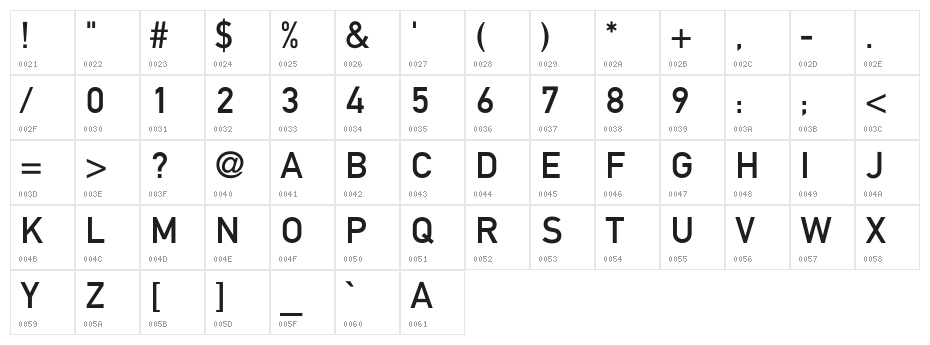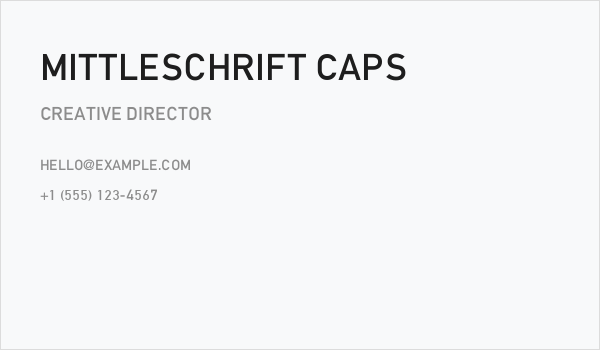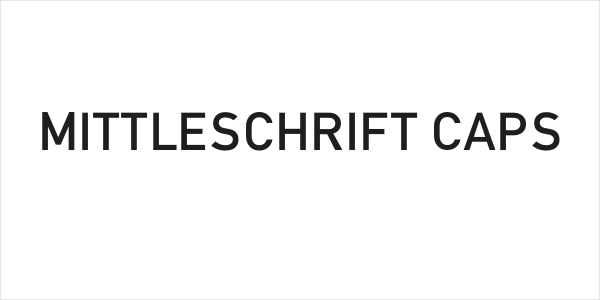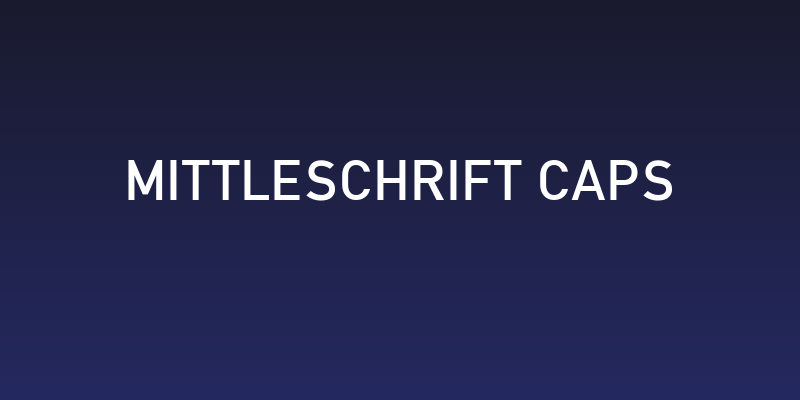
Mittleschrift Caps Font
Mittleschrift Caps Description
This font features a clean and modern sans-serif style with uniform stroke widths, giving it a balanced and professional appearance. The characters are designed with a geometric precision, offering a contemporary look that is both functional and aesthetically pleasing. The uppercase letters are bold and assertive, while the lowercase letters maintain a consistent height and width, ensuring readability. The numerals are clear and distinct, making them suitable for various applications. Special characters are well-defined, adding versatility to the font's use. Overall, this font is ideal for projects that require a straightforward and modern typeface.
Proposed ProjectsIdeal for corporate branding, web design, signage, and editorial layouts.